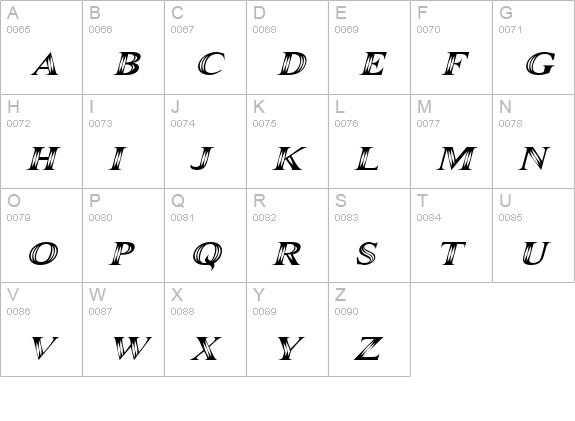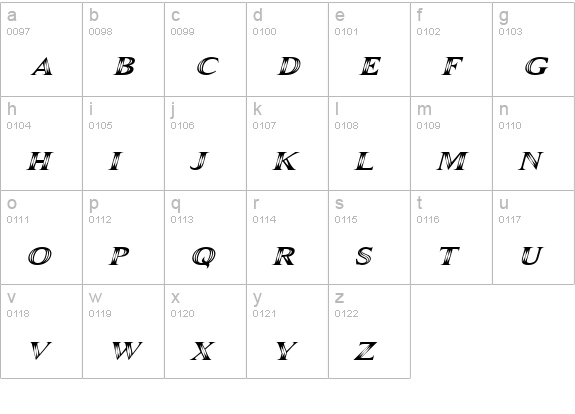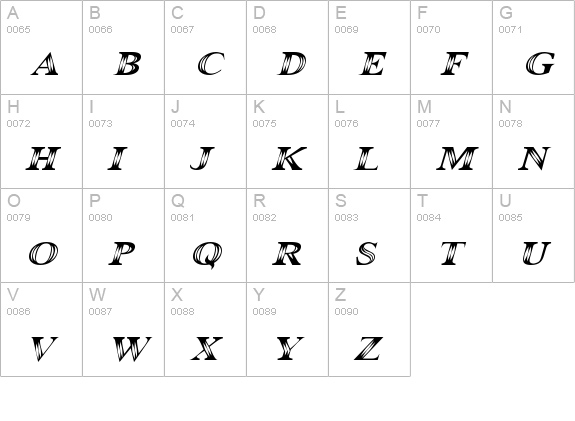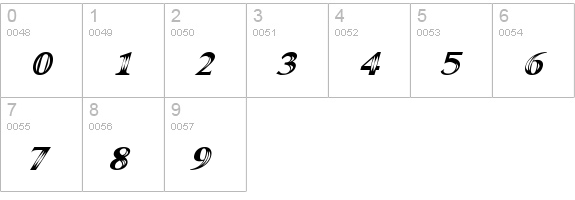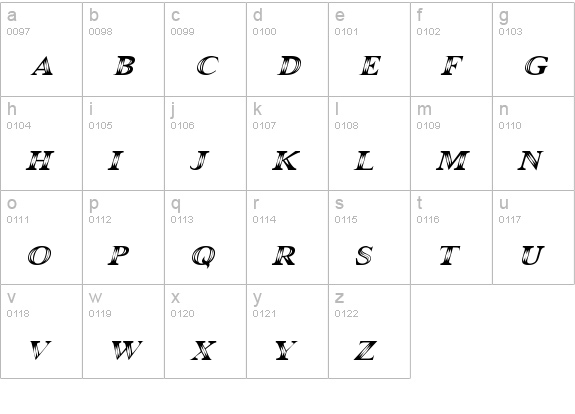
Maranallo Italic Font Details
Maranallo Italic is a distinctive, italic variant in the Maranallo typeface family \xE2\x80\x94 well suited to design and typography projects.
Maranallo Italic is an exquisite font that embodies elegance and sophistication. With its sleek and slanted letterforms, this font exudes a sense of modernity and grace. Designed with meticulous attention to detail, Maranallo Italic strikes the perfect balance between classic and contemporary design elements. This font is not only visually appealing but also versatile, making it suitable for a wide range of creative projects. From branding and packaging to editorial design and advertising, Maranallo Italic adds a touch of refinement to any typographic composition. Its italicized style brings a sense of movement and dynamism, capturing the viewer's attention and creating a lasting impression. One of the most remarkable aspects of Maranallo Italic is that it is available for free download at FontsMarket.com. This means that designers and typographers can effortlessly access this stunning font without any cost. The creators of Maranallo Italic believe in the power of creativity and accessibility, and by offering this font for free, they are empowering designers to bring their visions to life without any barriers. Whether you are working on a personal project, a professional assignment, or simply exploring new typographic possibilities, Maranallo Italic is a font that will elevate your design to new heights. Its clean and sophisticated aesthetic, combined with its freely available download, makes it an invaluable addition to any designer's toolkit. Download Maranallo Italic today from FontsMarket.com and experience the seamless blend of elegance and accessibility that this font offers. Let your creativity soar as you embark on a typographic journey that is bound to leave a lasting impression on your audience.